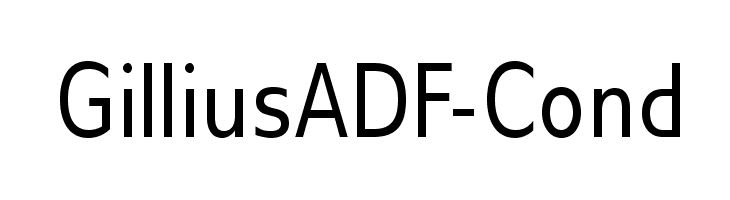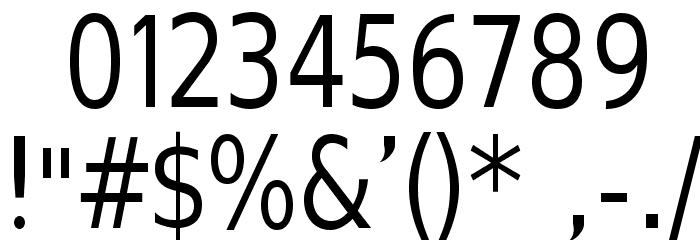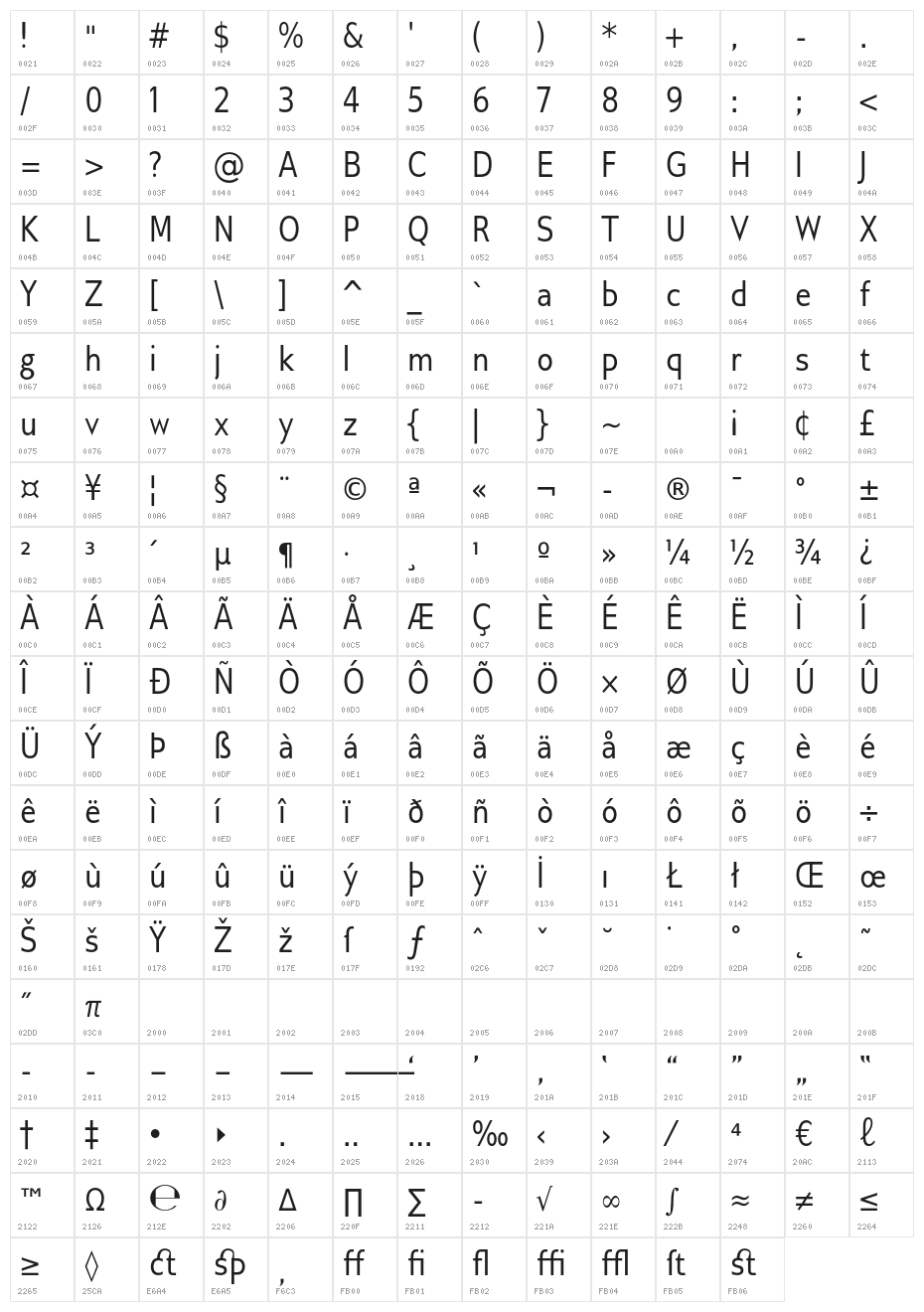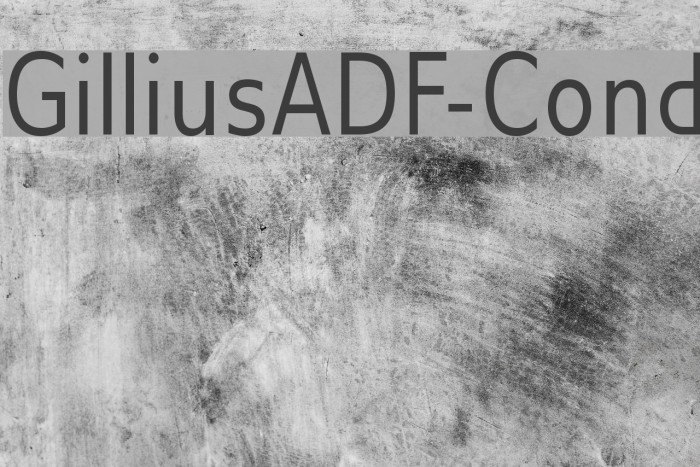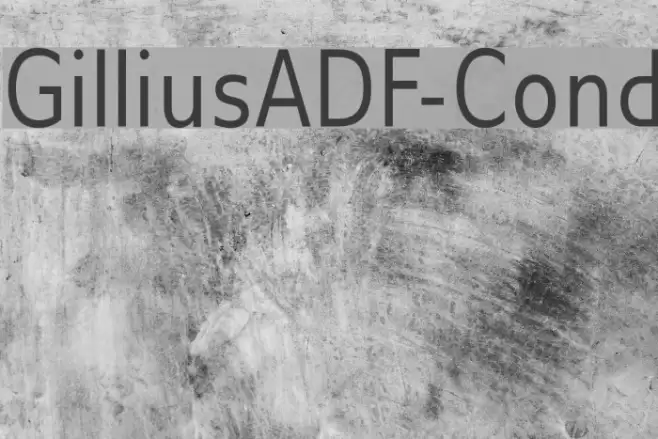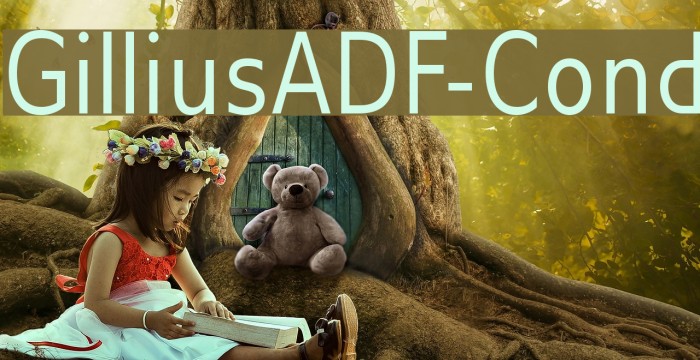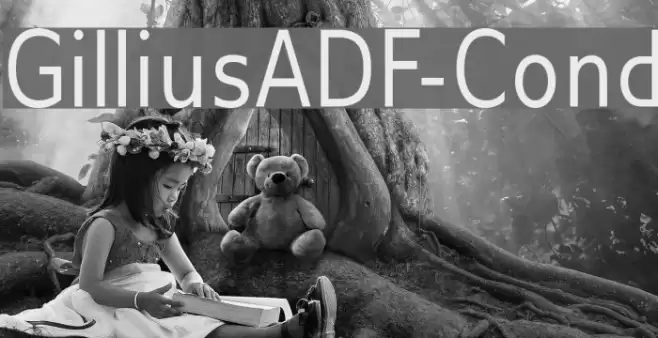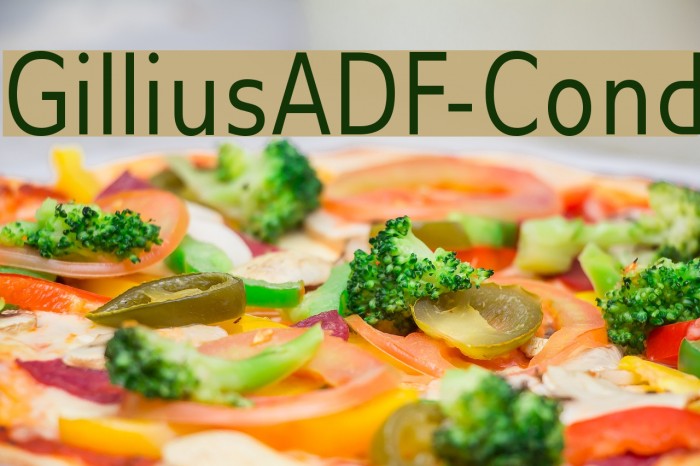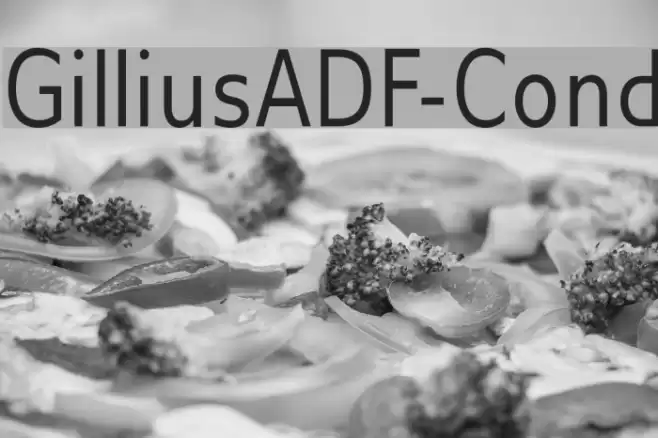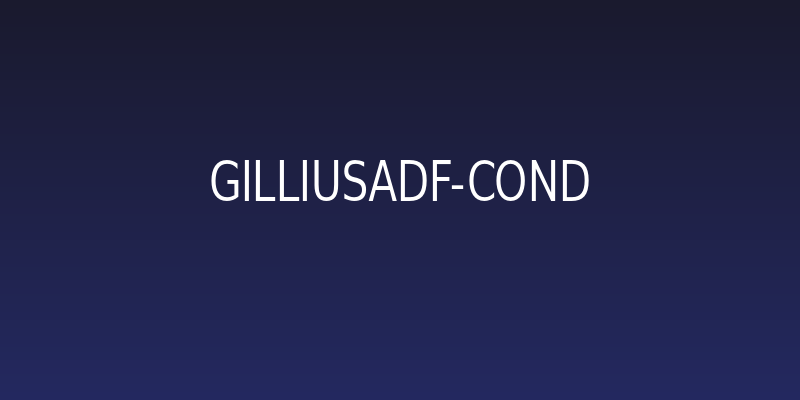
GilliusADF-Cond Font
GilliusADF-Cond Description
This font features a clean and modern sans-serif design with a condensed structure. The characters are uniform and well-balanced, offering a sleek and professional appearance. The uppercase letters are tall and commanding, while the lowercase letters maintain a consistent height, enhancing readability. The numerals are clear and distinct, making them suitable for various applications. The special characters are well-integrated, providing a comprehensive set for diverse uses. Overall, this font exudes a contemporary and versatile style, ideal for both digital and print media.